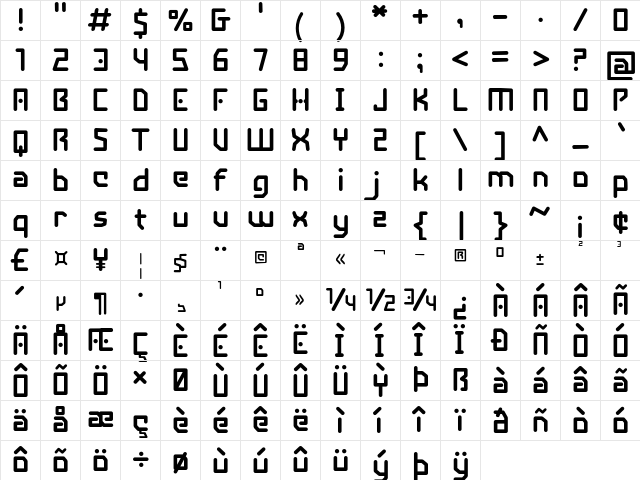
Aeris Corda Regular Free Font
Aeris Corda Regular
Design Context for Aeris Corda
Aeris Corda is a composed and adaptable typeface that performs quietly and consistently across a wide range of design contexts.